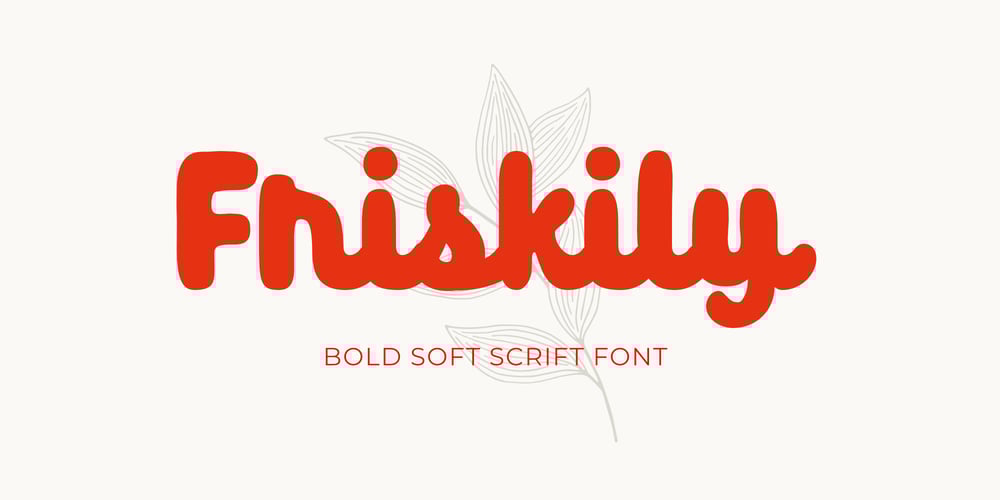
Friskily Font Family was designed by Ali Hamidi and published by Ali Hamidi. Friskily contains 1 styles and family package options. Friskily is a soft bold script font with a retro and simple vibe. It will look great on headlines, magazines, logos, branding and so much more!